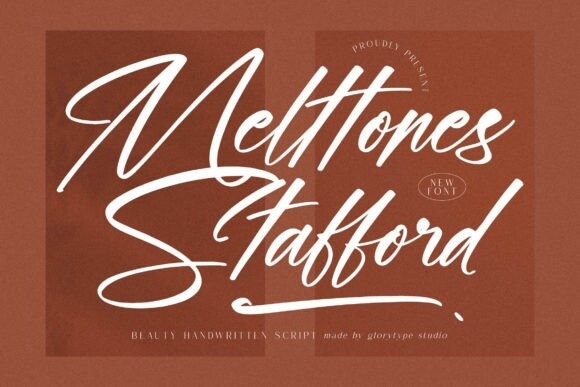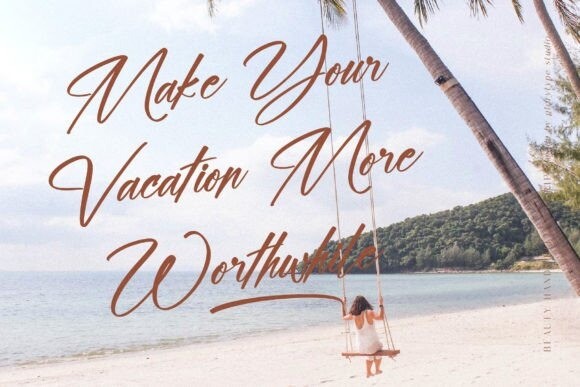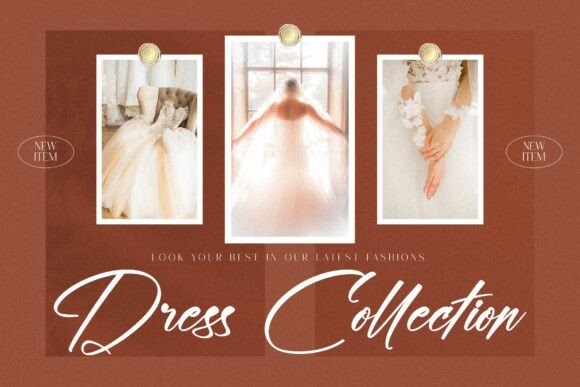
Melttones Stafford Font
Melttones Stafford Font – Beauty Handwritten Script suitable for any projects such as logos, branding projects, homeware designs, product packaging, mugs, quotes, posters, shopping bags, t-shirts, book covers, name cards, invitation cards, greeting cards, labels, photography, watermark, special events, and all your other lovely projects that need a beautiful script taste.